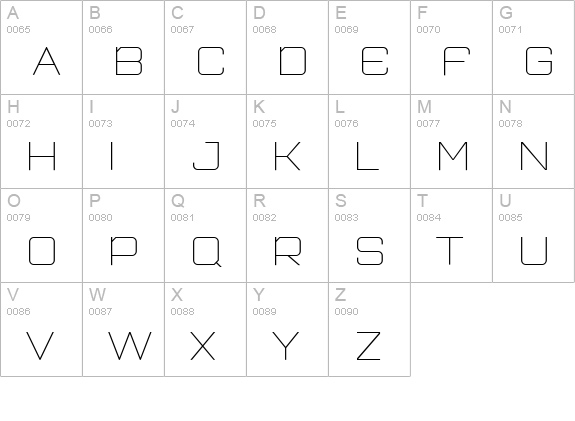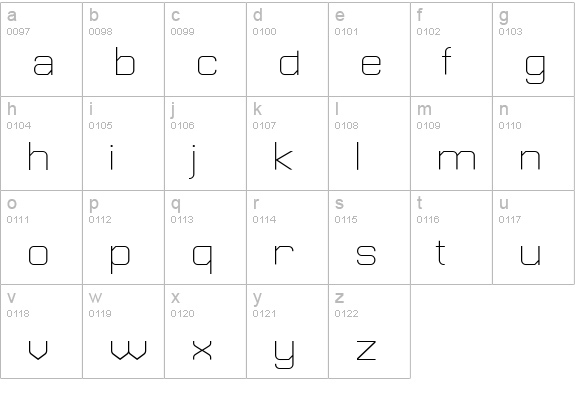
Introducing the elegant and sophisticated Plutonian font, a versatile typeface that exudes a sense of modernity and style. With its sleek lines and unique design elements, Plutonian is perfect for a wide range of design projects, from branding to editorial content and everything in between.